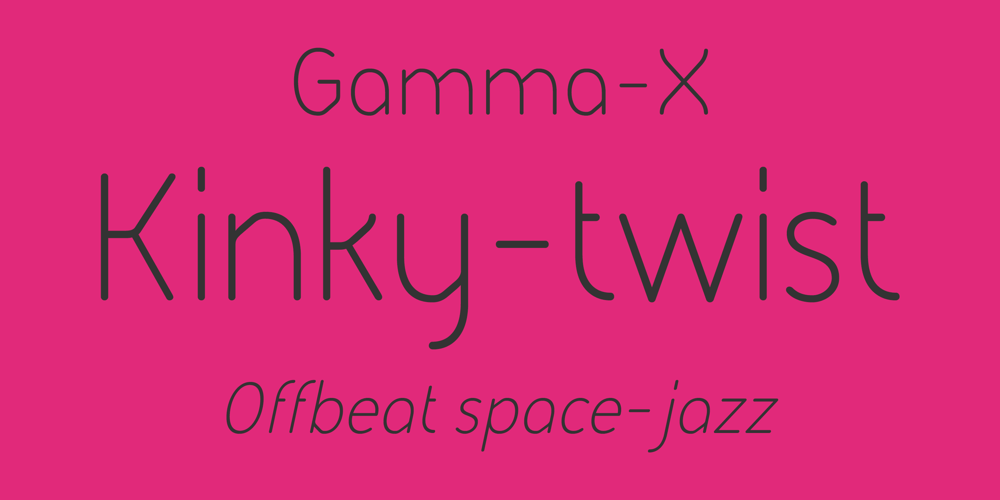
FS Sophie
FS Sophie font
FS Sophie Font Family was designed by Jason Smith and published by Fontsmith. FS Sophie contains 6 styles and family package options. SlinkyChic, svelte and slinky, FS Sophie was inspired by and designed in partnership with ATTIK UK. With clean lines, simple, elegant curves and dynamic forms, it brings a feminine sophistication to text and headlines in publishing and advertising.KinkyFS Sophie’s engaging simplicity arises from its construction, using a modular set of core, rounded shapes and straight strokes, drawn and then repeated to create letterforms.An extra technical detail of occasional, short 45-degree diagonals adds a distinctive little kink to Sophie’s cool exterior.AlchemyBy some kind of typographic alchemy, the combination of simple curves and lines with unexpected twists to the shapes of characters creates an unusually spirited and lively design in all three weights and their italic sets.Born for the spotlight, FS Sophie is a natural for big headlines, pull quotes and other high-profile text elements.